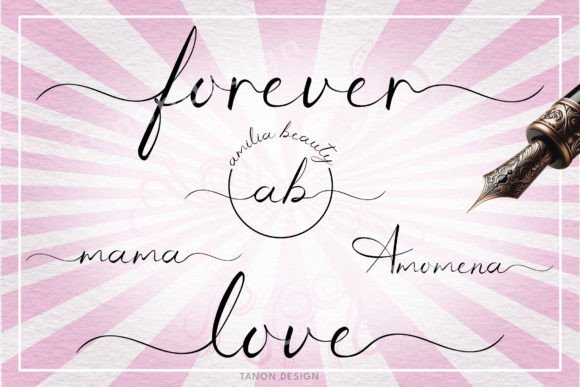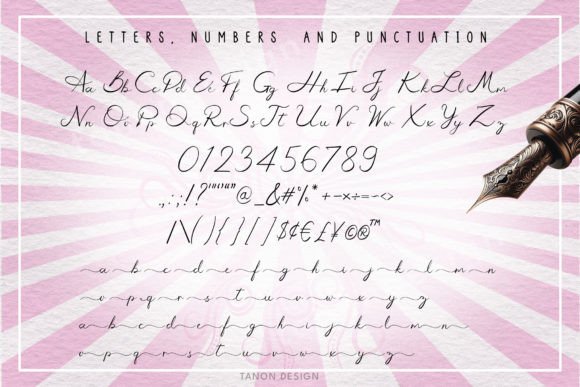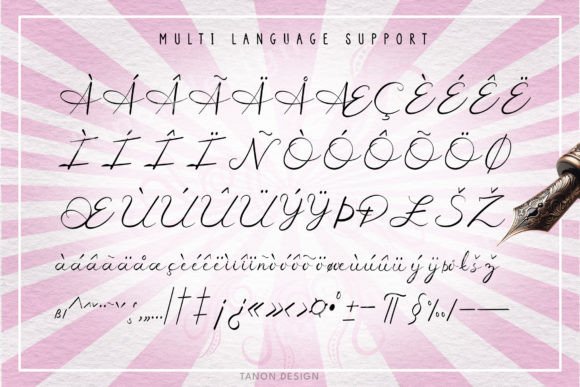
Introduction to Romeo Wedding Font
Introducing “Romeo Wedding” fonts a beautiful calligraphy handwritten font.
It will look fantastic on all your project designs including t-shirt designs, mug designs, digital designs, crafts, cards, and any projects This font is PUA encoded which means you can access all of the amazing glyphs and ligatures with ease.
Key Features of Romeo Wedding Font